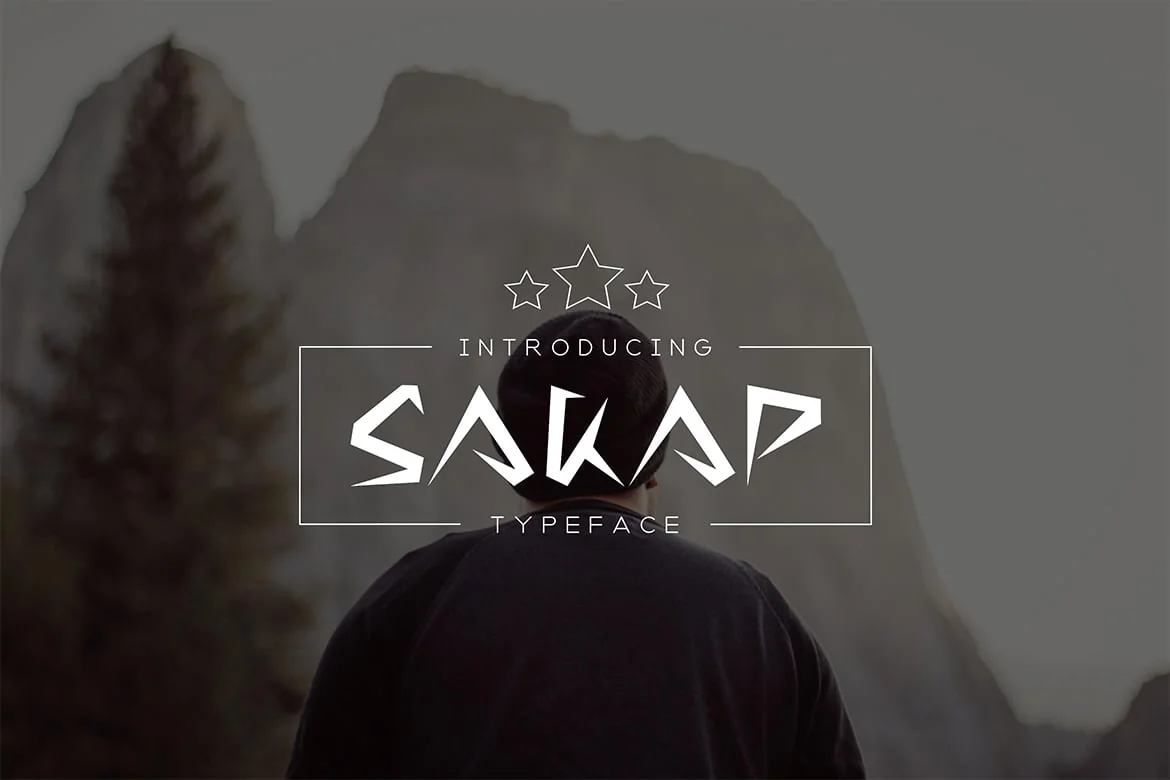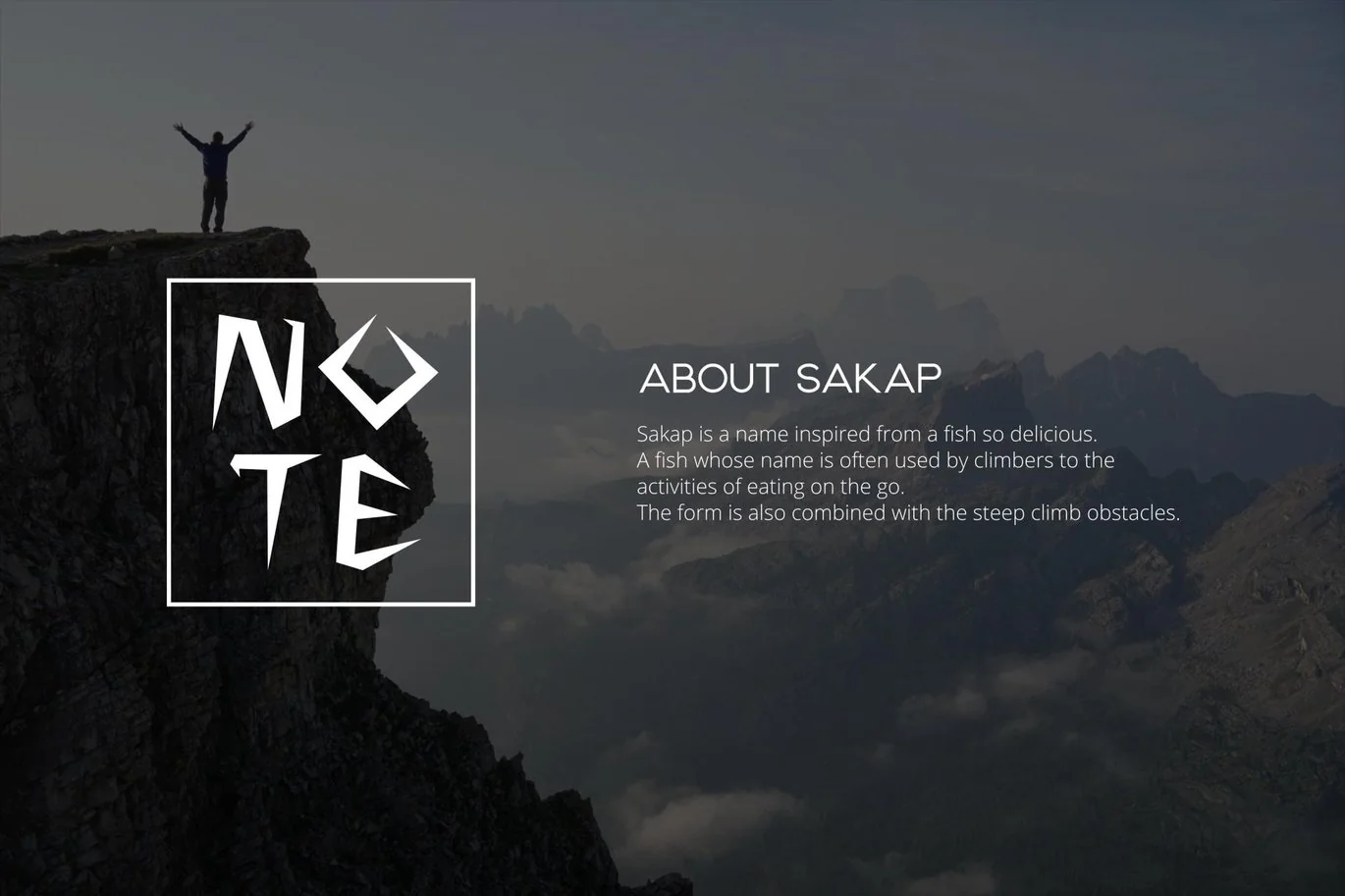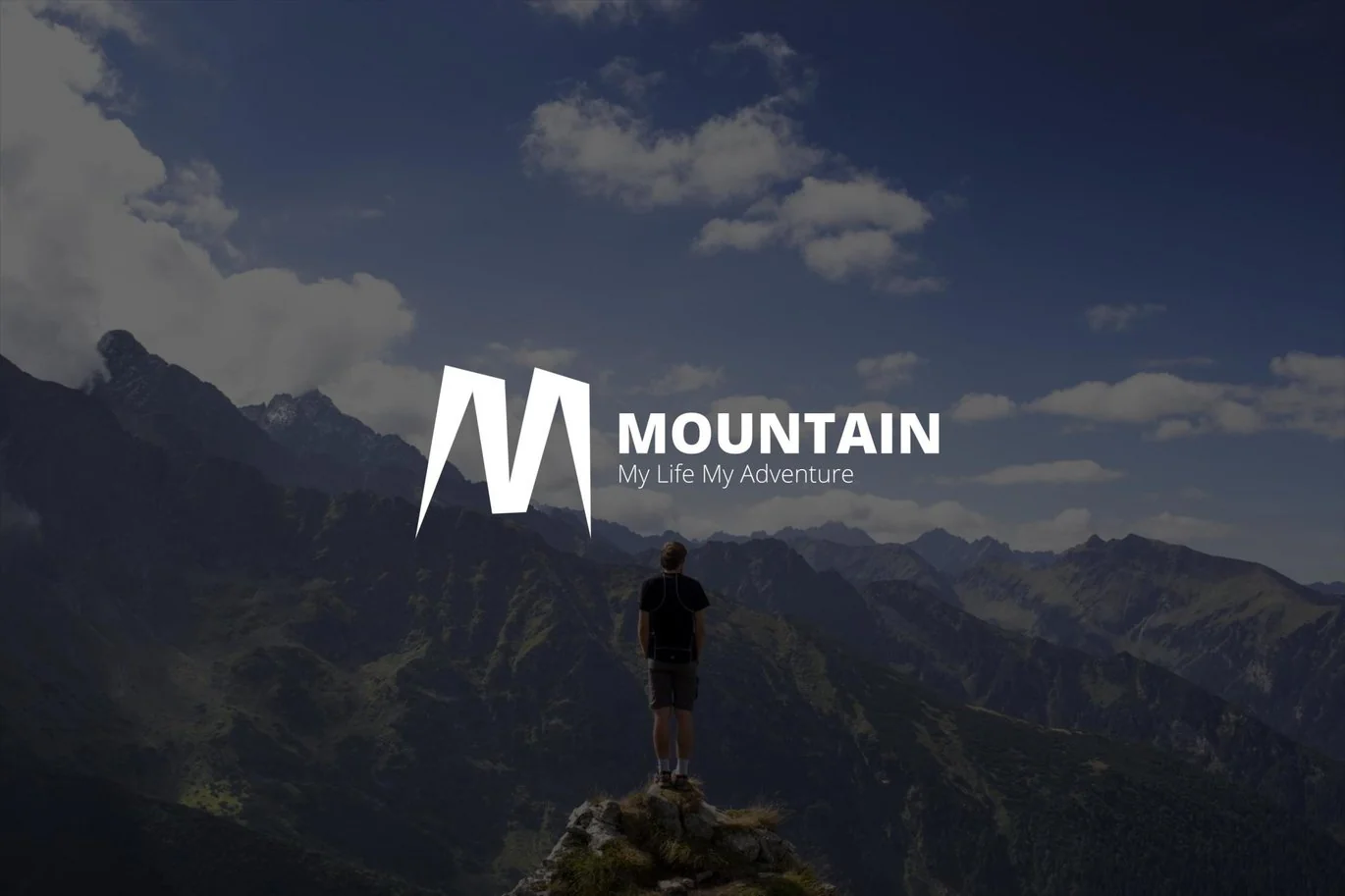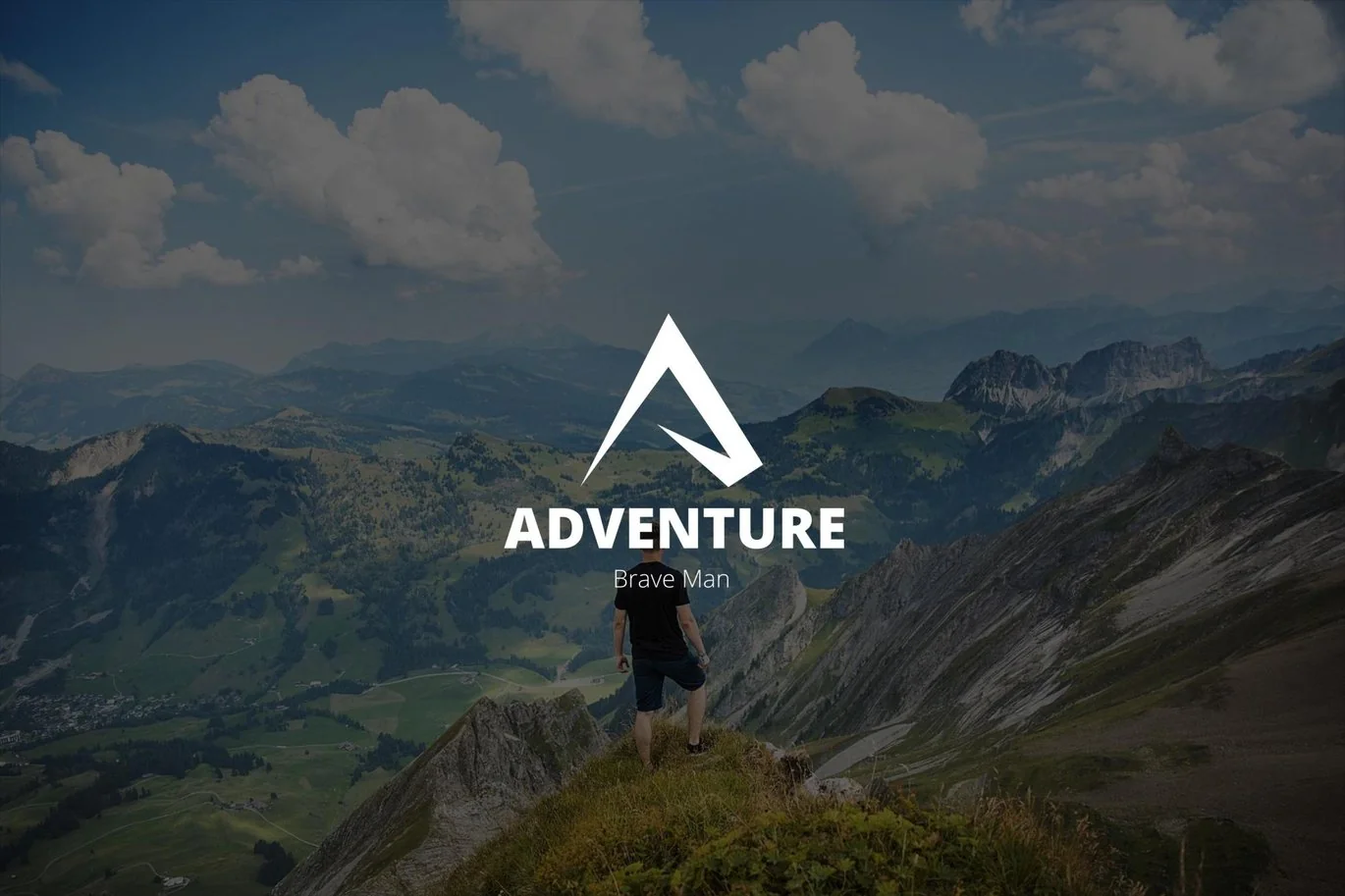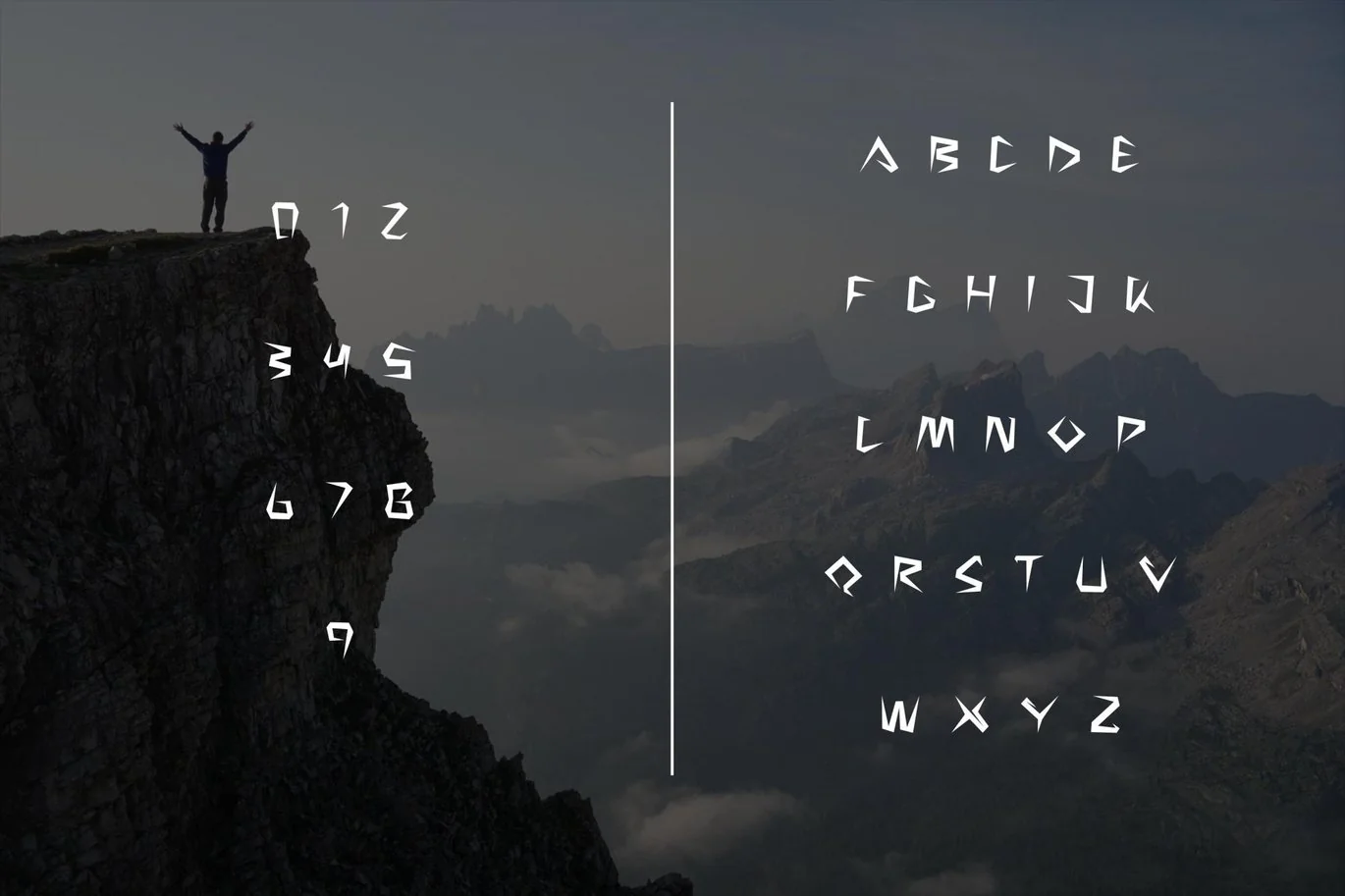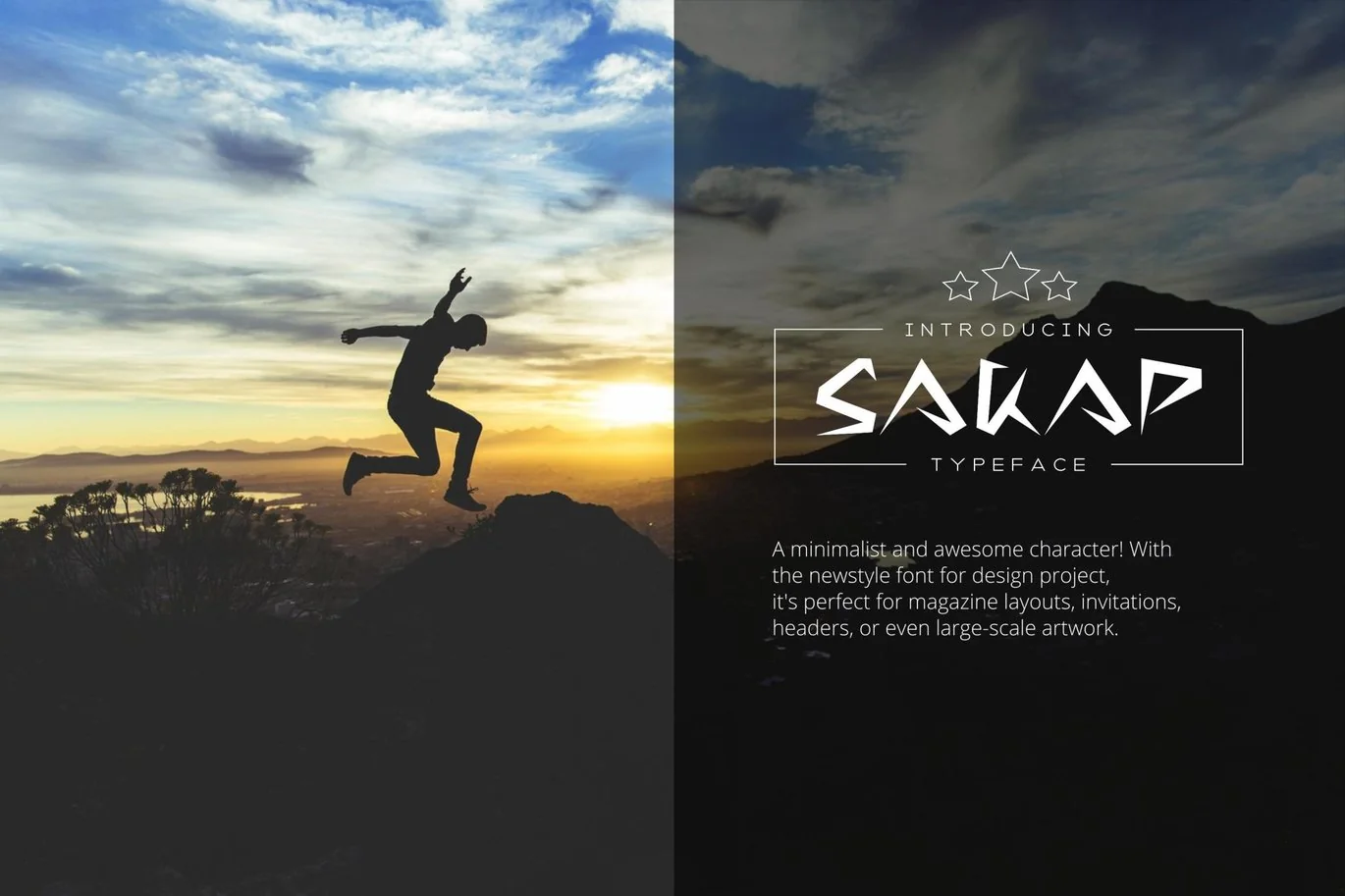
Sakap Typeface Font
Sakap is a name inspired from a fish so delicious. A fish whose name is often used by climbers to the activities of eating on the go. The form is also combined with the steep climb obstacles.